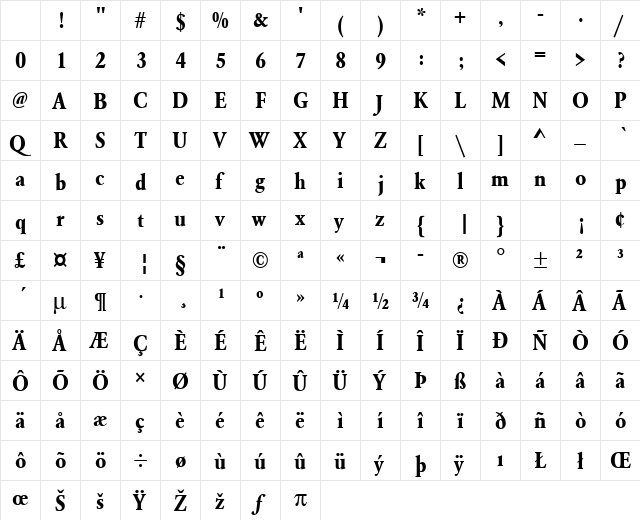
Complete URWGaramondTExtNar Bold glyph index. Displaying only characters natively supported by URWGaramondTExtNar Bold font.
URWGaramondTExtNar is a composed and adaptable typeface that performs quietly and consistently across a wide range of design contexts. Its bold stroke weight gives it real presence on the page.